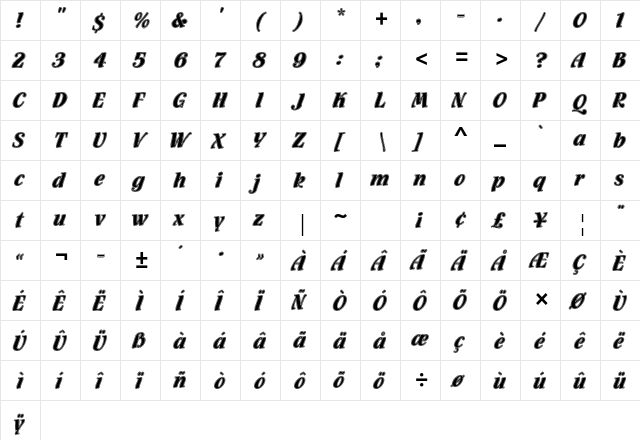
Flamenco Inline Std Regular Font Preview
Flamenco Inline Std Regular
Flamenco Inline Std Regular Font Details
| Designer | Tony Geddes |
Design Context for Flamenco Inline Std Typeface
Flamenco Inline Std brings ornamental detail and strong personality to headlines and identities, where visual impact matters more than quiet functionality.
Font Pairing: Pair with a clean neutral sans-serif for body copy to let Flamenco Inline Std's character lead without overwhelming the composition.
Pro Tip: Treat Flamenco Inline Std as the centrepiece of your typographic hierarchy. One strong heading set in a decorative face can carry an entire layout.